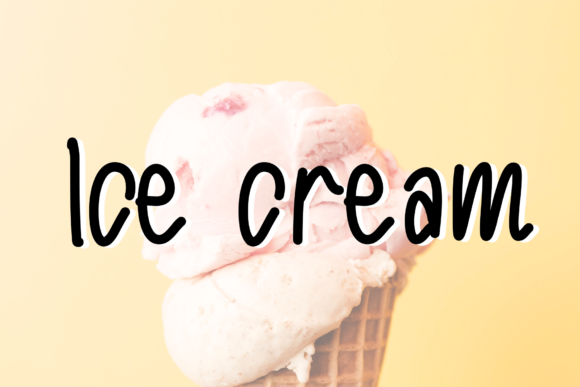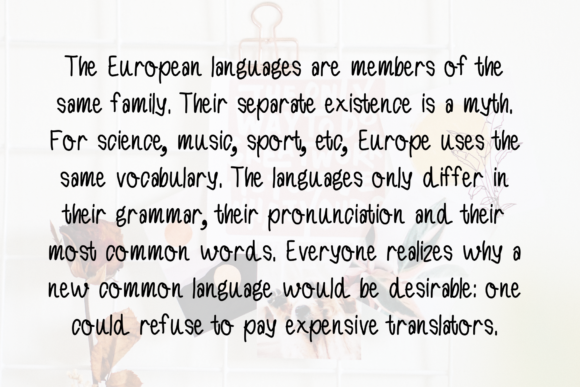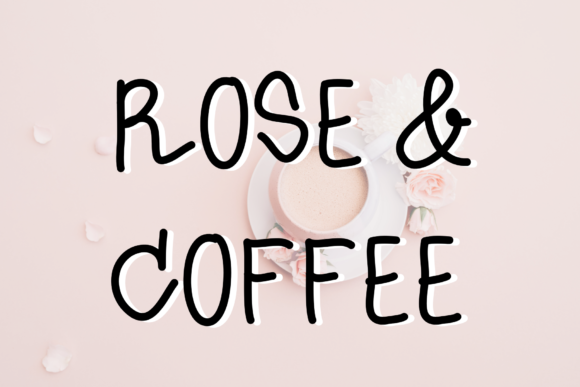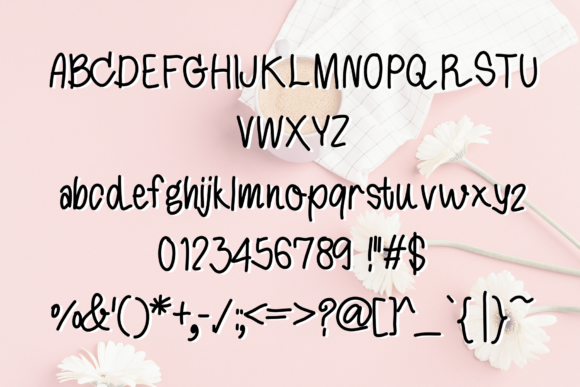
Gife Font
About Gife Font
Give is a a cute handwritten font with a friendly feel. Get inspired by its authentic feel and use it to create gorgeous logos, beautiful stationary art, eye-catching social media posts, and cute greeting cards.